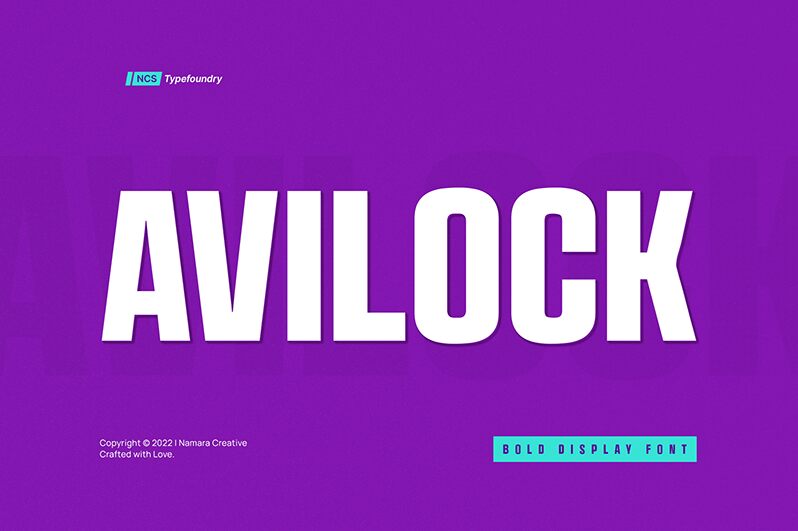
Avilock Bold, crafted by Namara Creative, stands out with its sans serif flair and a distinctly condensed form. The boldness of this font exudes confidence and strength, making it an excellent choice for creating impactful headlines and statements that demand attention. Its sleek lines combine modernity with a touch of elegance, ensuring that Avilock Bold is not only assertive but also versatile in its aesthetic appeal.
This font finds its place in environments where space is at a premium but message clarity cannot be compromised. Ideal for branding, advertising materials, and editorial headlines, Avilock Bold delivers messages with authority while maintaining style. Its condensed nature makes it particularly effective for designs that require high-impact visuals within limited layout spaces. Whether on a poster or the front page of a magazine, Avilock Bold is sure to leave an indelible mark.
Avilock is powerful bold display font Perfect for typography purposes that require a strong but subtle identity.
Avilock Bold